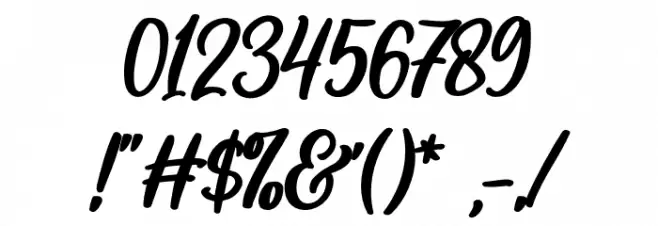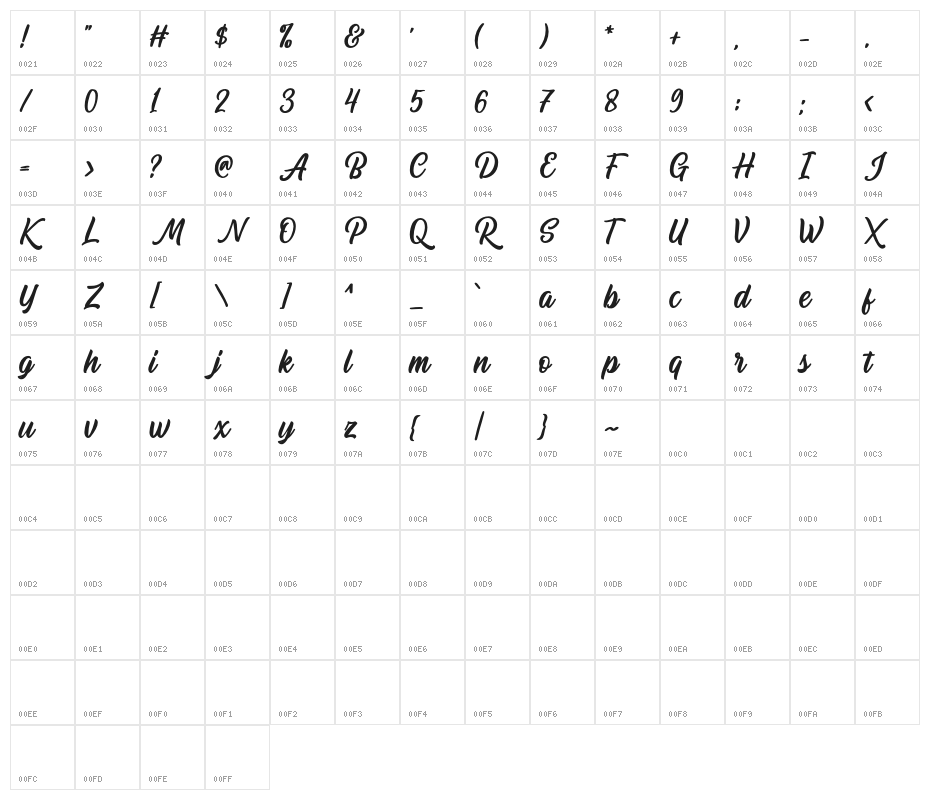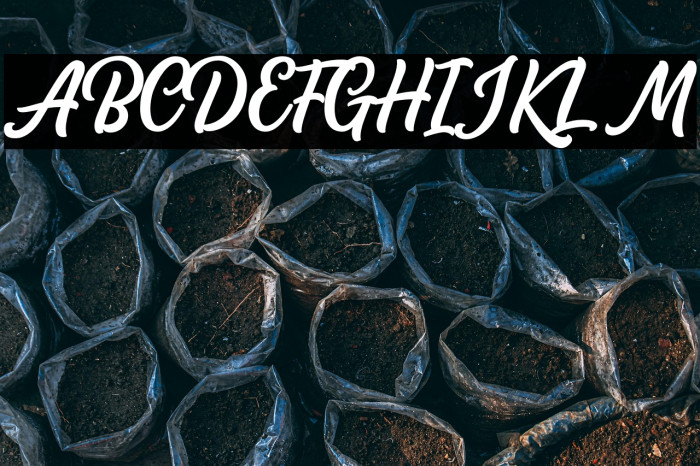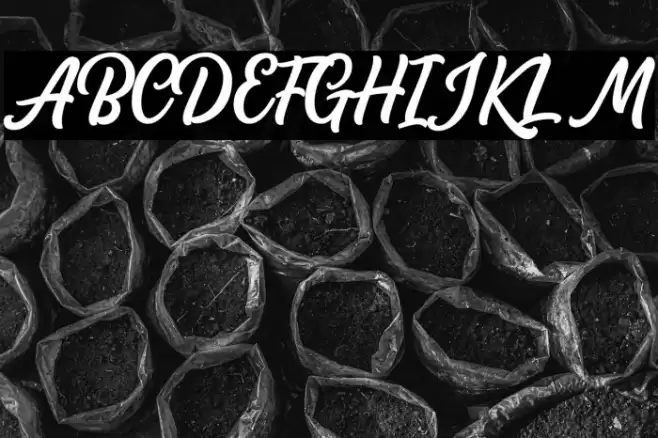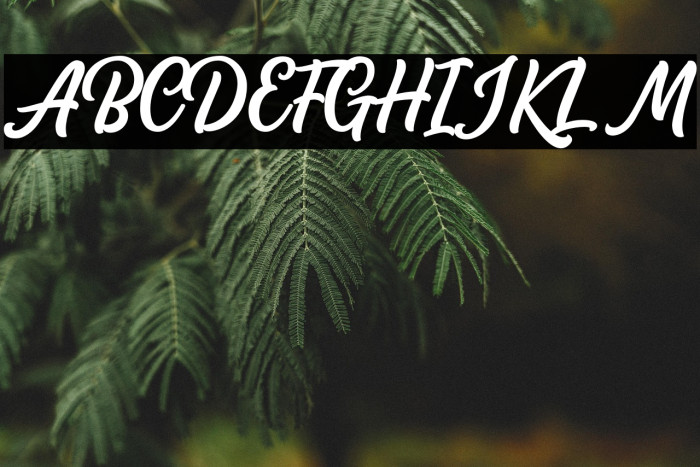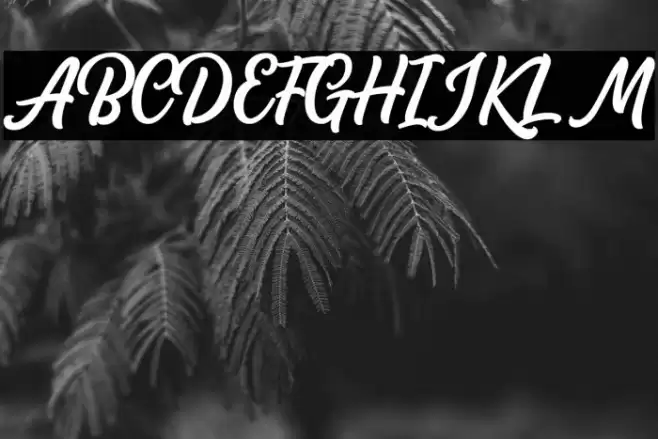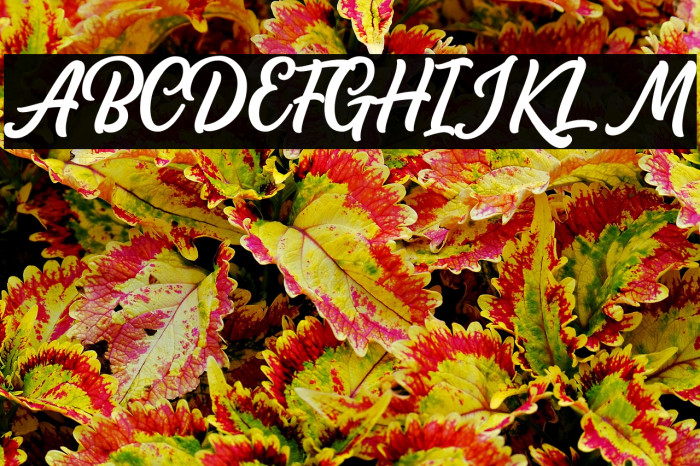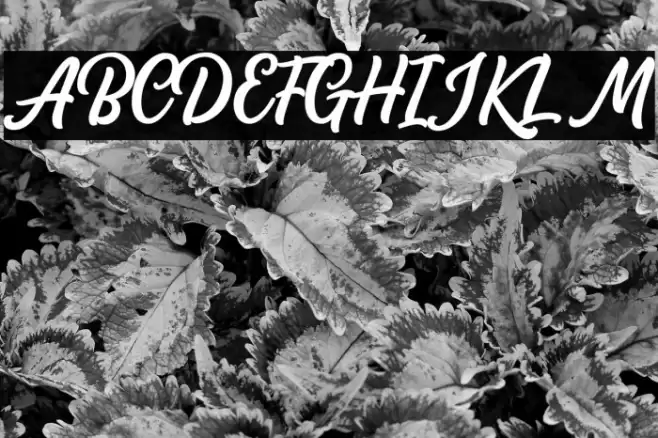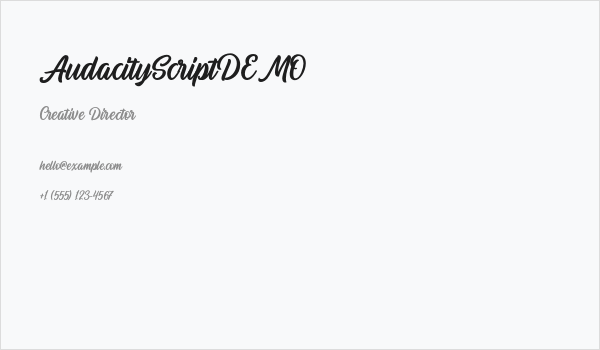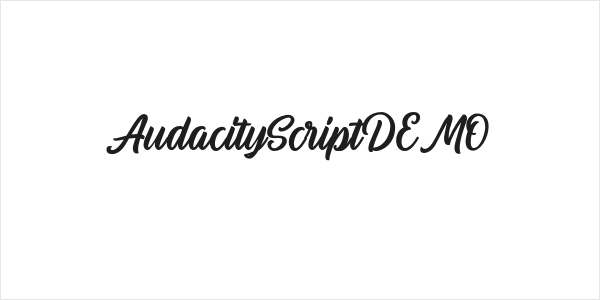
AudacityScriptDEMO Font
AudacityScriptDEMO Description
This font features a bold, flowing script style that exudes elegance and sophistication. The characters are connected in a smooth, cursive manner, giving it a handwritten appearance. The uppercase letters are slightly larger and more pronounced, while the lowercase letters maintain a consistent flow. Numbers and special characters are designed to complement the overall script style, maintaining the same fluidity and boldness. The font's strokes are thick and consistent, providing a strong visual impact. This style is ideal for projects that require a touch of elegance and personality.